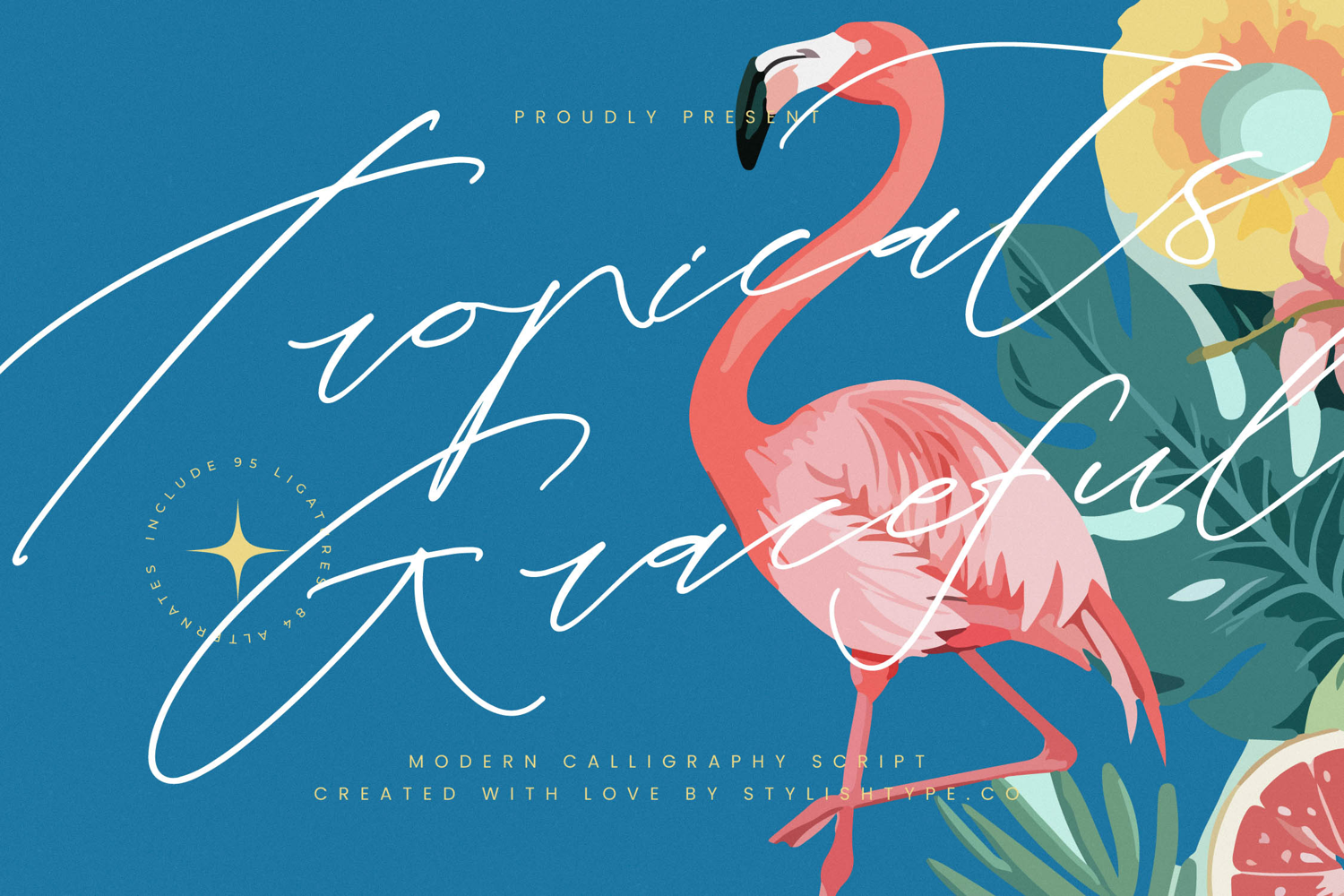
Tropicals Graceful - Modern Calligraphy Script
Tropicals Graceful - Modern Calligraphy Script , from Stylishtype , Suitable for any projects such as: logos, branding projects, homeware designs, product packaging, mugs, quotes, posters, shopping bags, t-shirts, book covers, name card, invitation cards, greeting cards, label, photography, watermark, special events, and all your other luxury and beautiful projects that need a Luxury Script taste.